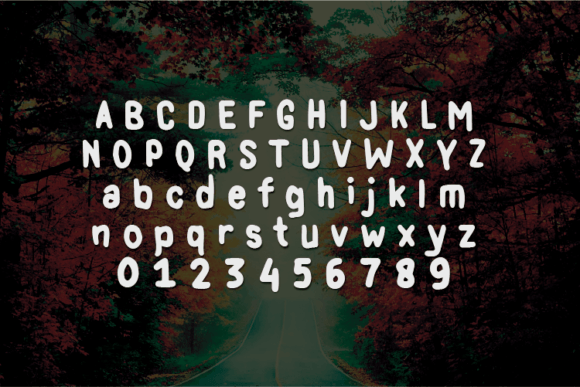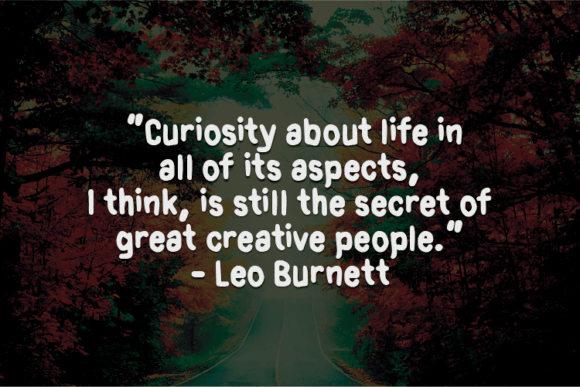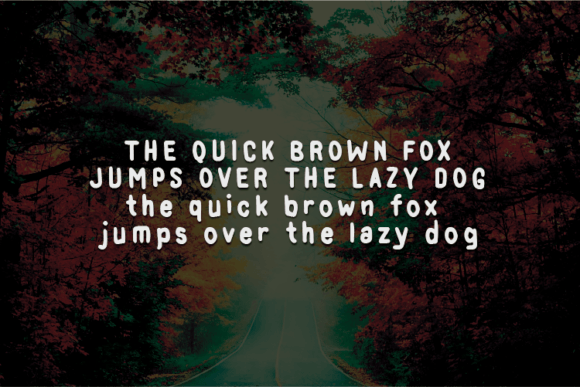
Introducing Growthope Font: The Unique Handwritten Font for Creative Designs
Are you tired of using the same old fonts for your designs? Look no further! Growthope Font is a game-changer for designers and crafters alike. This natural handwritten font is unlike any other, with a unique twist that sets it apart from the rest. In this article, we’ll dive into the features and benefits of Growthope Font, and explore how it can elevate your designs to the next level.
The Unique Feature of Growthope Font
So, what makes Growthope Font so special? The answer lies in its distinctive approach to handwritten typography. Unlike other handwritten fonts, Growthope Font is crafted without changing a single node in each character’s indentation. This means that every letter, from A to Z, has a natural, organic feel that is both visually appealing and authentic.
This unique feature gives Growthope Font a charm that is hard to resist. The font’s natural flow and rhythm make it perfect for designs that require a personal touch. Whether you’re creating quotes, notes, or product designs, Growthope Font is the perfect choice.
Perfect for Quotes, Notes, and Designs
Growthope Font is incredibly versatile, making it suitable for a wide range of design applications. Here are just a few examples of how you can use this amazing font:
- Quotes: Add a personal touch to your inspirational quotes with Growthope Font. The font’s natural, handwritten style makes it perfect for sharing motivational messages on social media, t-shirts, or posters.
- Notes: Use Growthope Font to add a touch of elegance to your notes, journals, or planners. The font’s unique style makes it easy to read and write, making it perfect for daily use.
- T-Shirts and Merchandise: Growthope Font is a great choice for designing t-shirts, hoodies, and other merchandise. The font’s bold, yet elegant style makes it perfect for creating eye-catching designs that stand out.
- Product Design: Whether you’re designing packaging, labels, or branding materials, Growthope Font is a great choice. The font’s natural, organic feel makes it perfect for creating designs that are both visually appealing and authentic.
Growthope Font offers a range of benefits for designers and crafters, including:
- Unique Style: Growthope Font offers a unique, natural handwritten style that sets it apart from other fonts.
- Versatility: The font is incredibly versatile, making it suitable for a wide range of design applications.
- Ease of Use: Growthope Font is easy to read and write, making it perfect for daily use.
- Authentic Feel: The font’s natural, organic feel makes it perfect for creating designs that are both visually appealing and authentic.
In conclusion, Growthope Font is a game-changer for designers and crafters alike. Its unique, natural handwritten style makes it perfect for a wide range of design applications, from quotes and notes to t-shirts and product designs. With its versatility, ease of use, and authentic feel, Growthope Font is a must-have for anyone looking to elevate their designs to the next level.